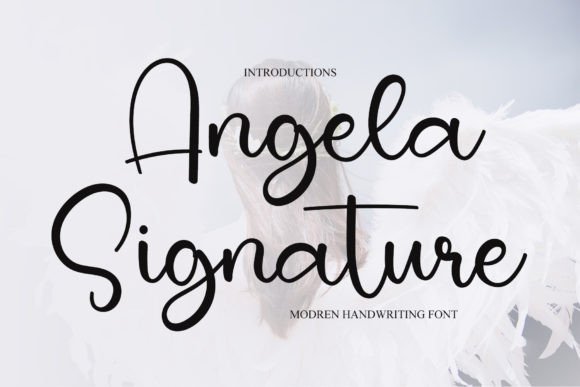
The Perfect Touch: Unlocking the Power of Angela Signature Font
Do you remember the moment when you stumbled upon the perfect font to bring your creative project to life? Maybe it was a late night brainstorming session, or a last-minute design tweak that made all the difference. Whatever the moment, it’s a feeling we’ve all experienced as designers – the thrill of finding the perfect font to elevate our work.
That’s exactly what the Angela Signature Font offers: a stylish and modern handwritten font that’s perfect for adding a personal touch to your designs. Whether you’re creating greeting cards, headlines, branding, or packaging, this font is sure to bring a smile to your audience’s face. With its wide range of applications and PUA-encoded glyphs, the Angela Signature Font is a valuable addition to any designer’s toolkit.
Key Features of Angela Signature Font
- Font Family: Angela Signature Font is a unique, handwritten font designed to mimic the style of signature writing.
- Font Size and Resolution: Designed to work best at sizes ranging from 12 to 72 points, with a recommended resolution of 300 DPI for optimal legibility.
- Unique Characteristics: Features a distinctive, cursive style with varying line widths, swashes, and flourishes to create a personal and expressive feel.
- Font Weight and Style: Offers a range of font weights, from Light to Bold, and multiple styles, including Regular, Italic, and Script, to cater to various design needs.
Designer Review: Angela Signature Font
Overall, I think the Angela Signature Font is a great choice for creative projects. It’s a beautiful script font with a lot of personality. Here are some things that work well:
- ✨ Unique and elegant design: The font has a sophisticated feel to it, making it perfect for projects that require a touch of class.
- ✨ Versatility: The Angela Signature Font can be used for a wide range of applications, from wedding invitations to blog posts.
- ⚠️ Limited language support: The font only includes the English alphabet, which may be a limitation for designers who need to work with other languages.
- ⚠️ Not ideal for small text: The font is best used for larger text sizes, as the details may get lost at smaller sizes.
Overall, I would give the Angela Signature Font 4 out of 5 stars. It’s a beautiful font that’s perfect for creative projects, but it does have some limitations to consider. With a little creativity and experimentation, designers can get great results with this font.
Use the Angela Signature Font to add a touch of elegance to your designs.
Pair the font with other elegant fonts for a sophisticated look.
The Angela Signature Font is perfect for:
Business cards and resumes.
Product labels and packaging.
Alternatives to Angela Signature Font for Designers
Great Vibes is a modern script font that is perfect for creating elegant and sophisticated designs. It features a flowing and cursive style that is ideal for headings, titles, and quotes. Great Vibes is a great alternative to Angela Signature Font for designers who want to add a touch of luxury and sophistication to their designs.
Comparison: Great Vibes has a more elegant and refined feel compared to Angela Signature Font, which is more playful and whimsical. Great Vibes is also more versatile and can be used for a wide range of design projects, from wedding invitations to business cards.
Carolyna Pro is a high-end script font that is designed for luxury and elegance. It features a flowing and cursive style that is perfect for creating sophisticated and refined designs. Carolyna Pro is a great alternative to Angela Signature Font for designers who want to add a touch of high-end sophistication to their designs.
Comparison: Carolyna Pro has a more refined and luxurious feel compared to Angela Signature Font, which is more playful and whimsical. Carolyna Pro is also more versatile and can be used for a wide range of design projects, from high-end fashion brands to luxury hotels.